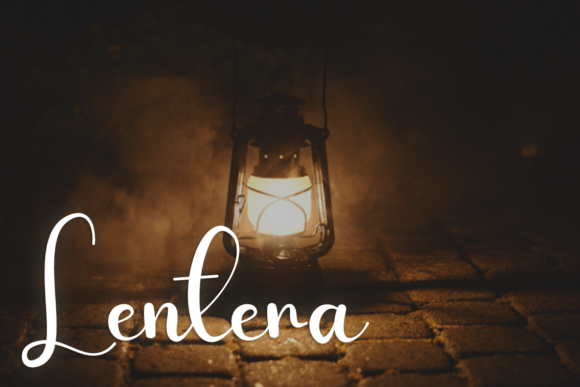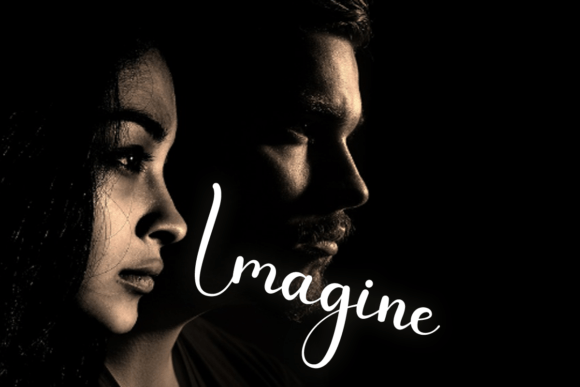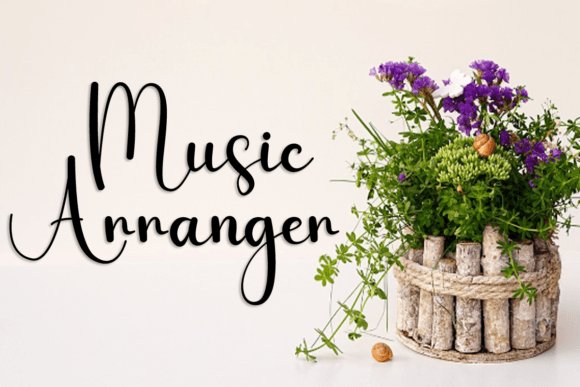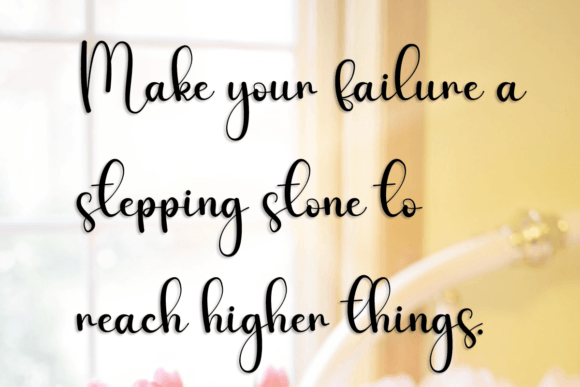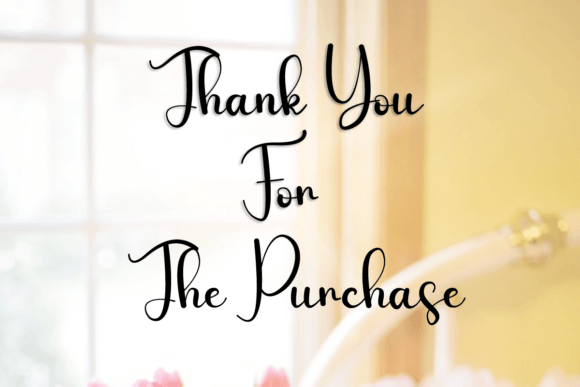
The Art of Elegant Expression: Exploring Calligraphy Font
There’s something magical about holding a pen to paper and watching words come alive in a flowing script. As a designer, you know the feeling of excitement that comes with discovering a new font that perfectly captures the essence of your creative vision. For me, that moment was when I stumbled upon a beautiful Calligraphy Font that added an air of sophistication to a wedding invitation I was working on.
Calligraphy Font is a timeless and versatile script font that has been a staple in the design world for centuries. Its elegant curves and flourishes are guaranteed to add a touch of romance to any project, from greeting cards to headlines. As a designer, you’ll appreciate the value of Calligraphy Font in elevating your work and making it stand out from the crowd.
Key Features of Calligraphy Font
- Font Styles: Calligraphy font typically comes in various styles, including Brush Script, Copperplate, and Spencerian, each with its unique characteristics and flair.
- Customization Options: Many calligraphy fonts offer customizable features, such as swash, ligature, and alternates, allowing users to create unique and personalized designs.
- Legibility and Readability: Designed to be visually appealing, calligraphy fonts often prioritize aesthetics over legibility, making them suitable for decorative and display purposes.
Calligraphy Font Review
Overall, I think the Calligraphy Font is a beautiful addition to any design project. It adds a touch of elegance and sophistication, making it perfect for wedding invitations, luxury brand logos, or any other project that requires a high-end feel.
- Beautifully crafted letterforms that evoke a sense of nostalgia and tradition
- Highly customizable, allowing designers to adjust the size, spacing, and color to suit their needs
- Works well in both print and digital applications
- May be difficult to read at small font sizes due to the intricate details and flourishes
- Can be quite dense, making it challenging to fit a lot of text in a small space
- May require additional styling or adjustments to make it work with certain design elements or color schemes
Overall, I think the Calligraphy Font is a great choice for designers who want to add a touch of sophistication and elegance to their projects. While it may have some limitations, its unique beauty and versatility make it a valuable addition to any design toolkit.
Calligraphy fonts are ideal for:
- Special occasion cards and gift tags
- Book titles and chapter headings
- Signage and branding materials
Remember to balance your calligraphy font with clear, readable text to avoid visual clutter.